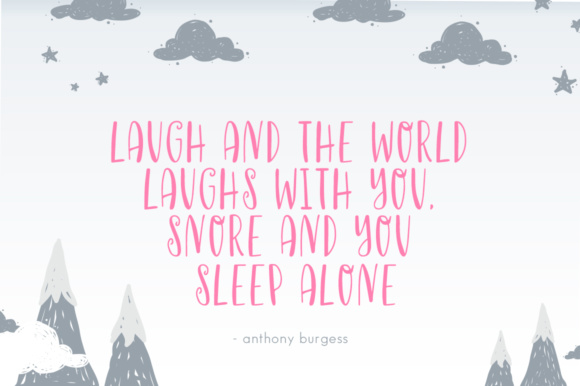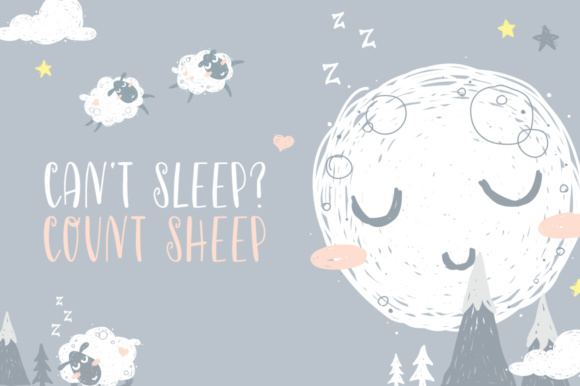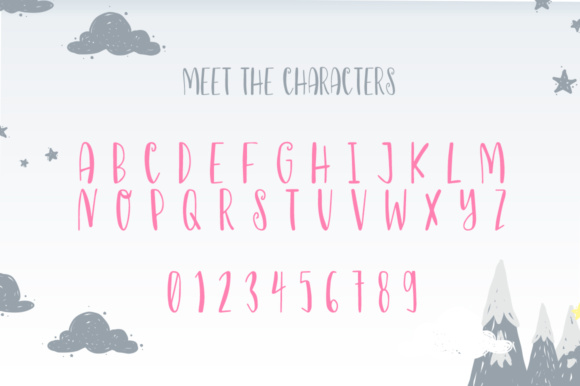
Introduction to Nightflashes Font
The Nightflashes is a dreamy new font from Salt and Pepper Designs.
Whimsical and carefree, it can add a touch of child like innocence to your work Happy and bouncy yet legible โ thatโs Nightflahes.
Nightflashes Font offers exceptional quality and versatility, making it a valuable addition to your design toolkit. Whether you’re creating for personal projects or commercial use, Nightflashes Font delivers professional results.